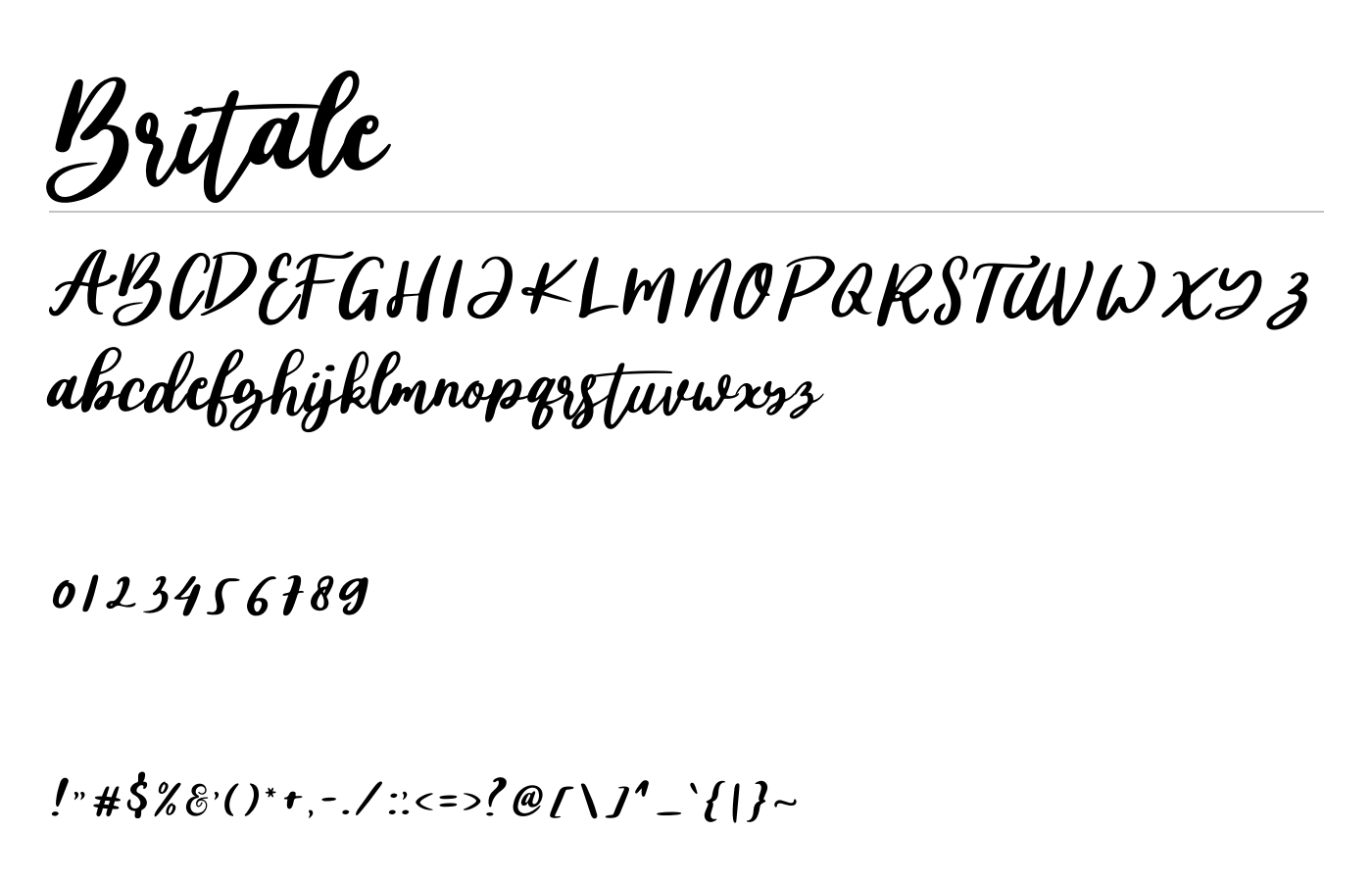
Britale is a lively and elegant script font featuring smooth, flowing strokes with moderate contrast and a slightly condensed width. Its hand-lettered style conveys warmth and personality, making it ideal for creative branding, invitations, and headlines that seek a friendly yet refined touch. This font works well where a personal, stylish, and approachable vibe is desired, such as fashion, beauty, and lifestyle projects.
Britale Font
About Britale Font